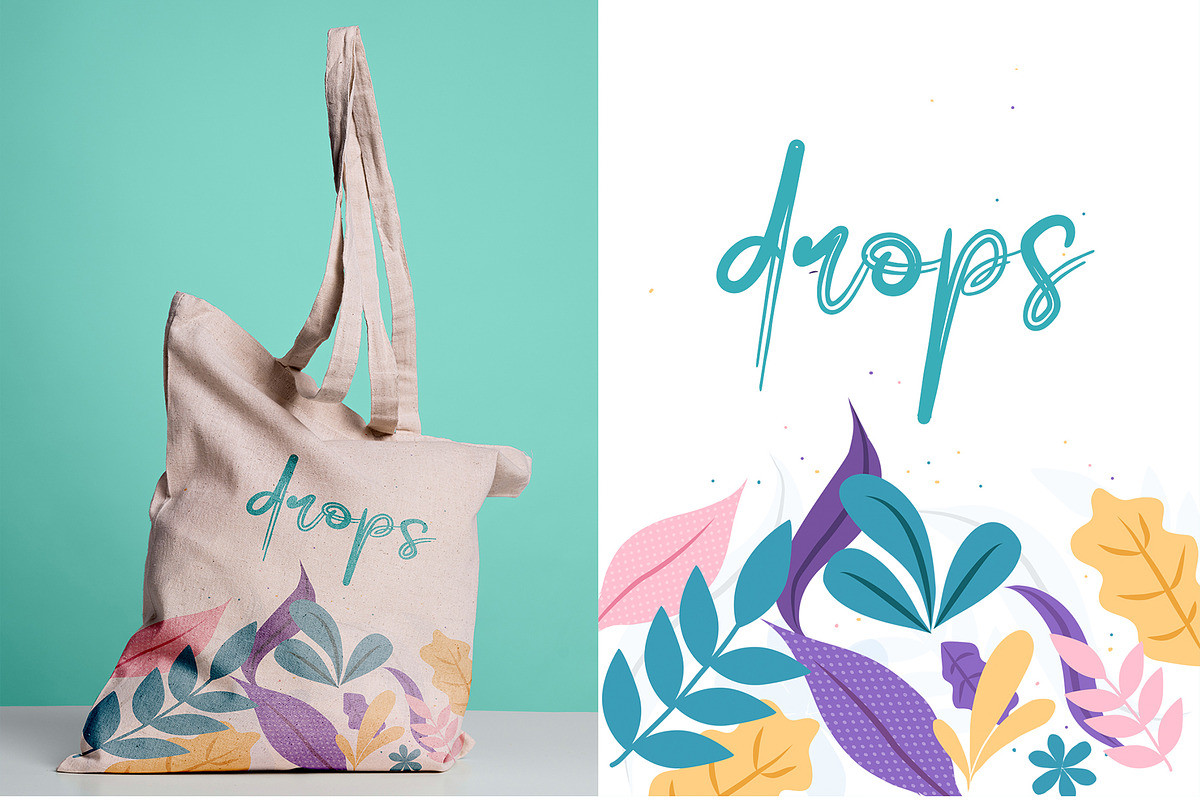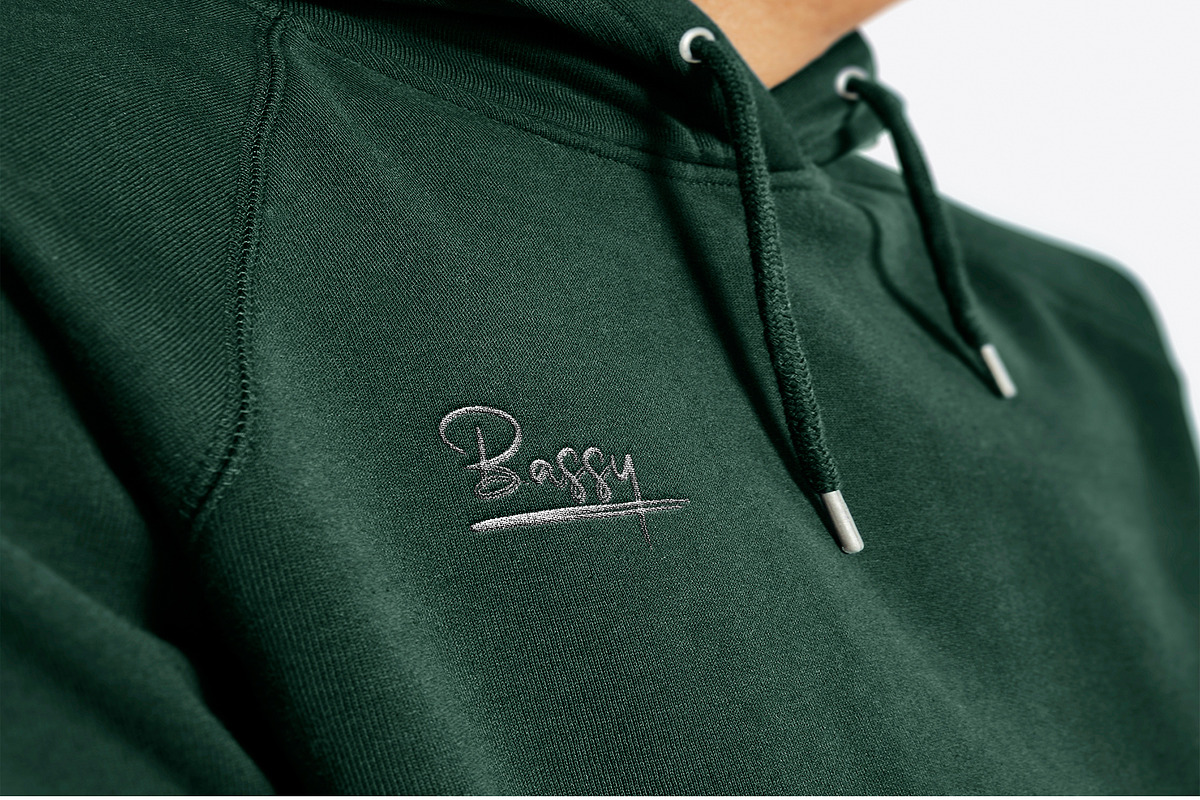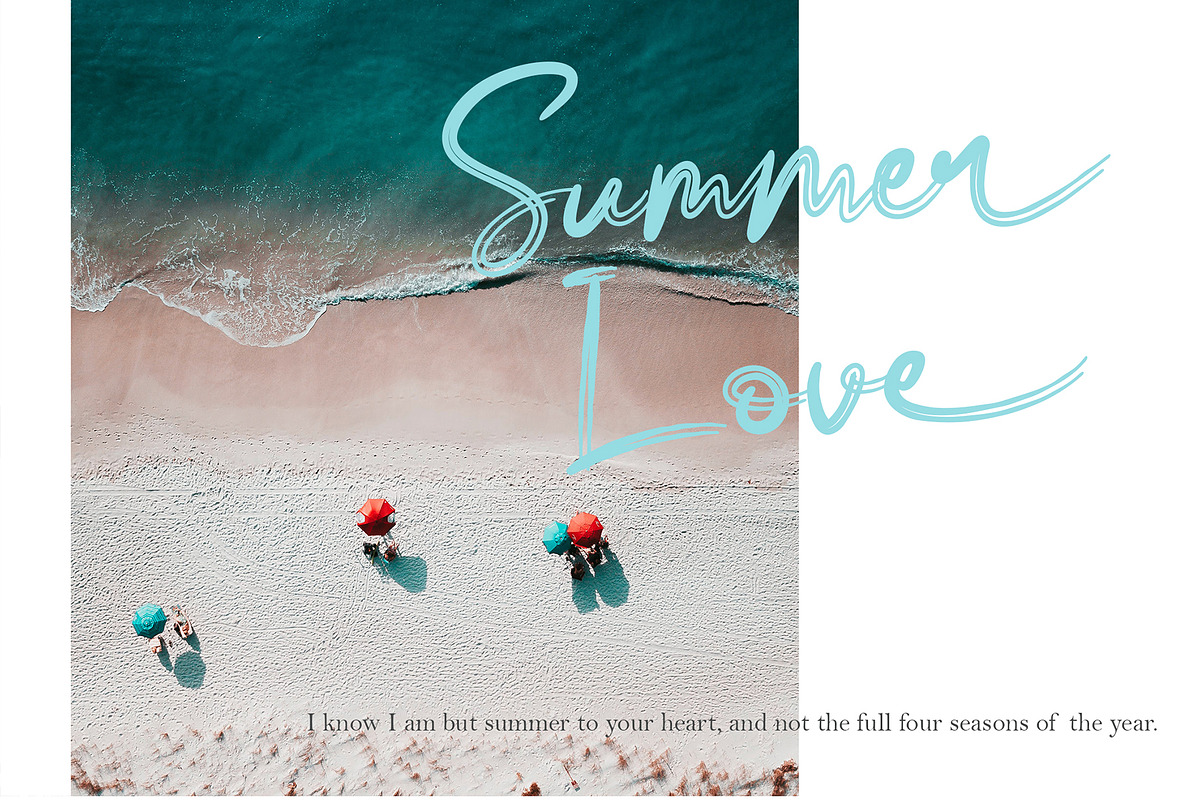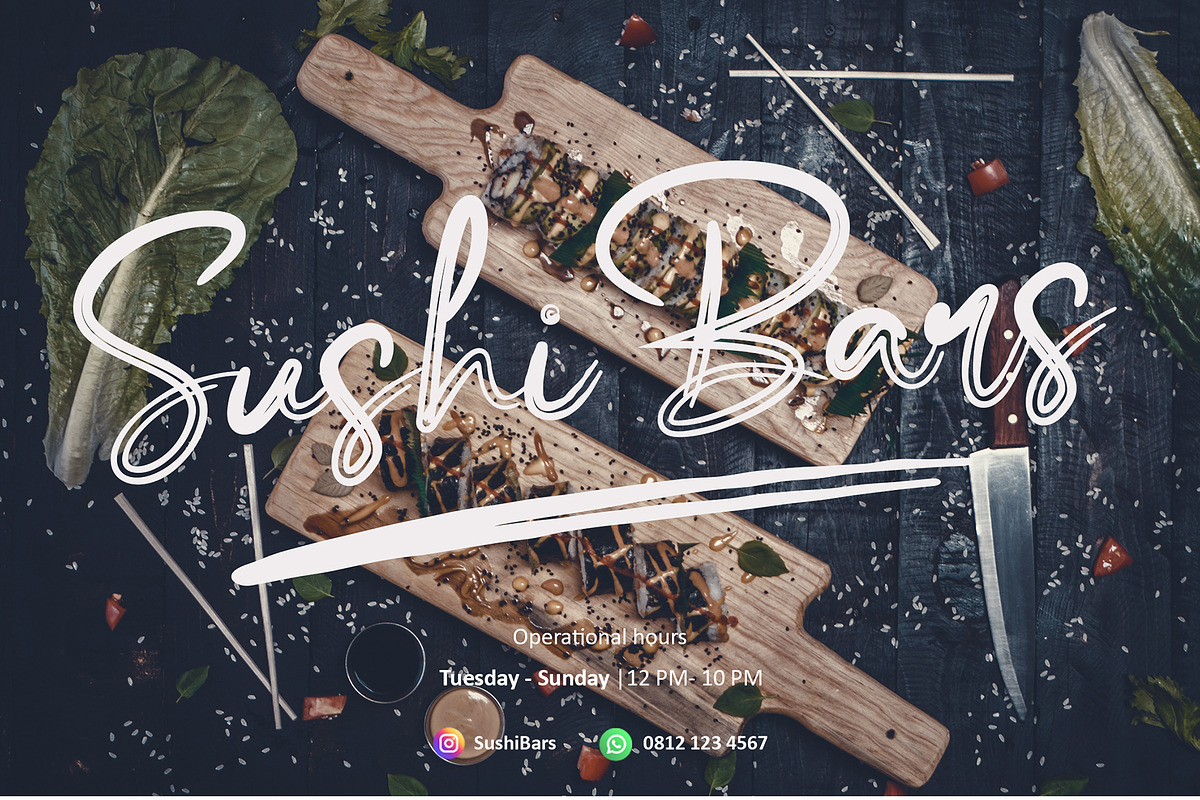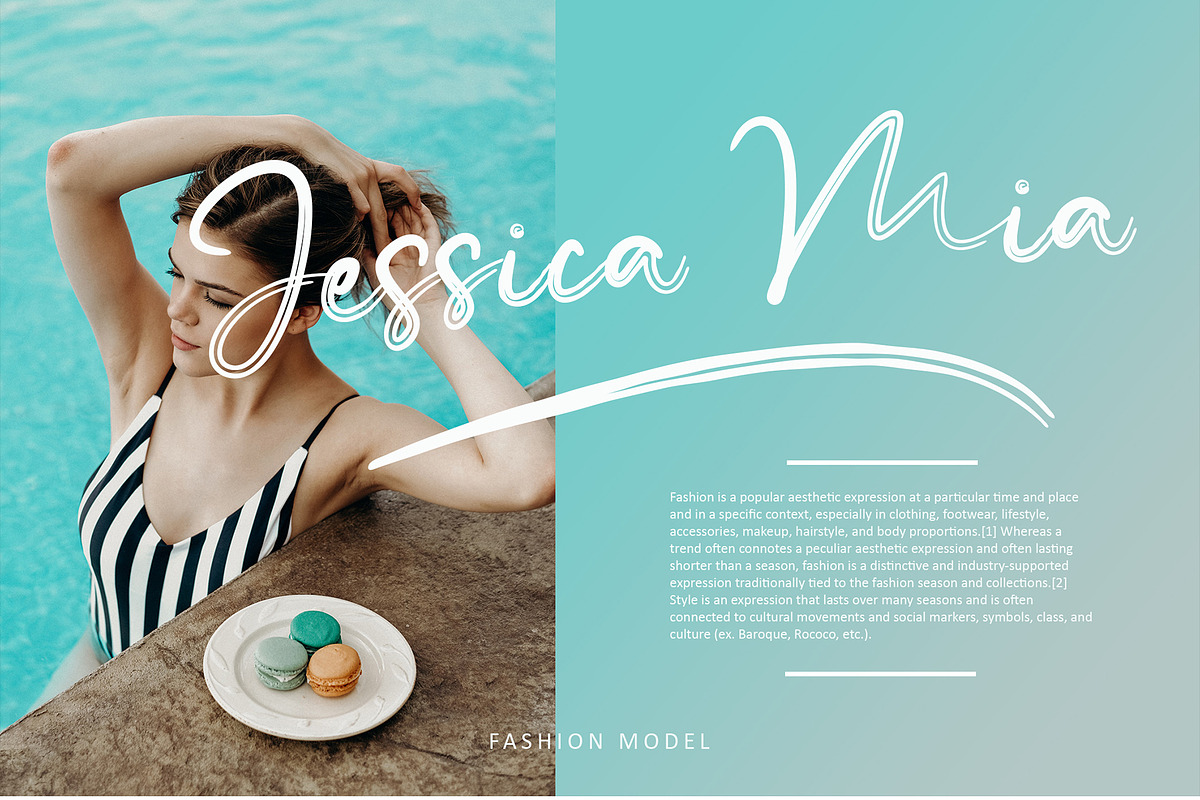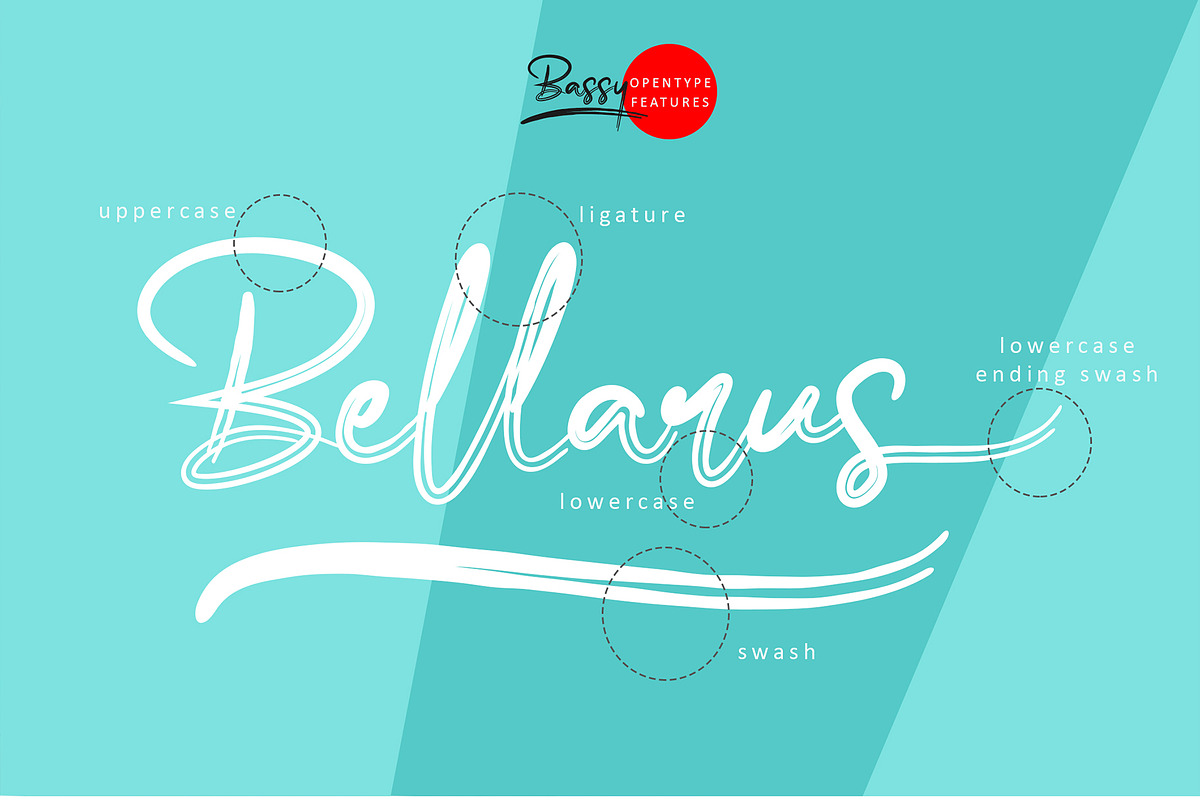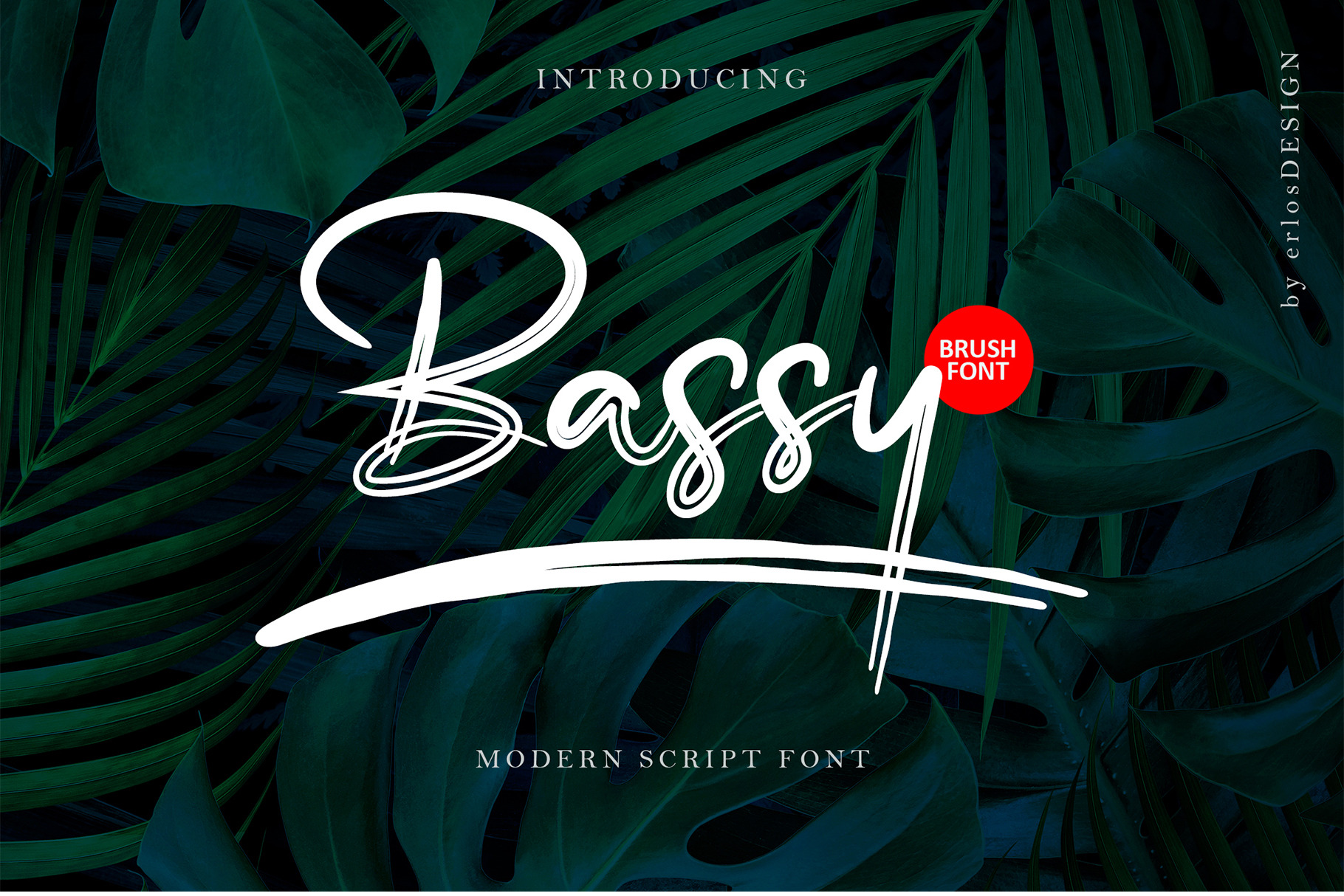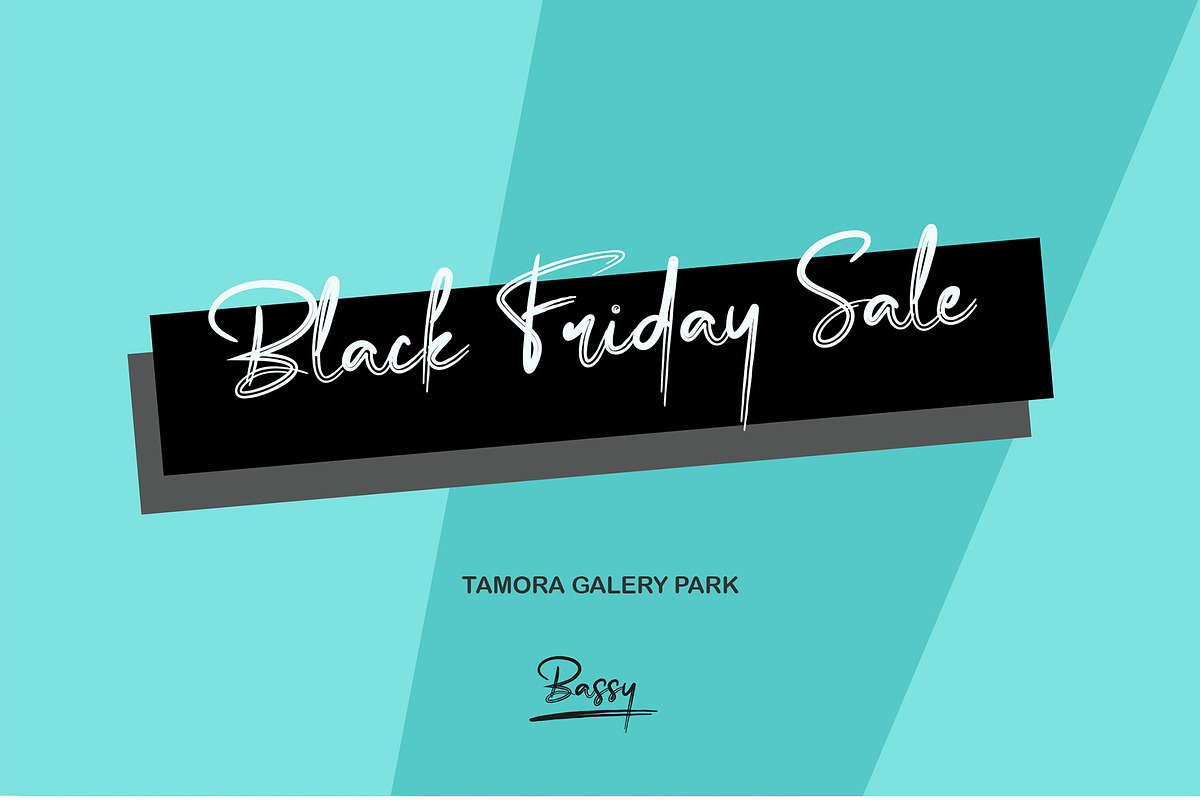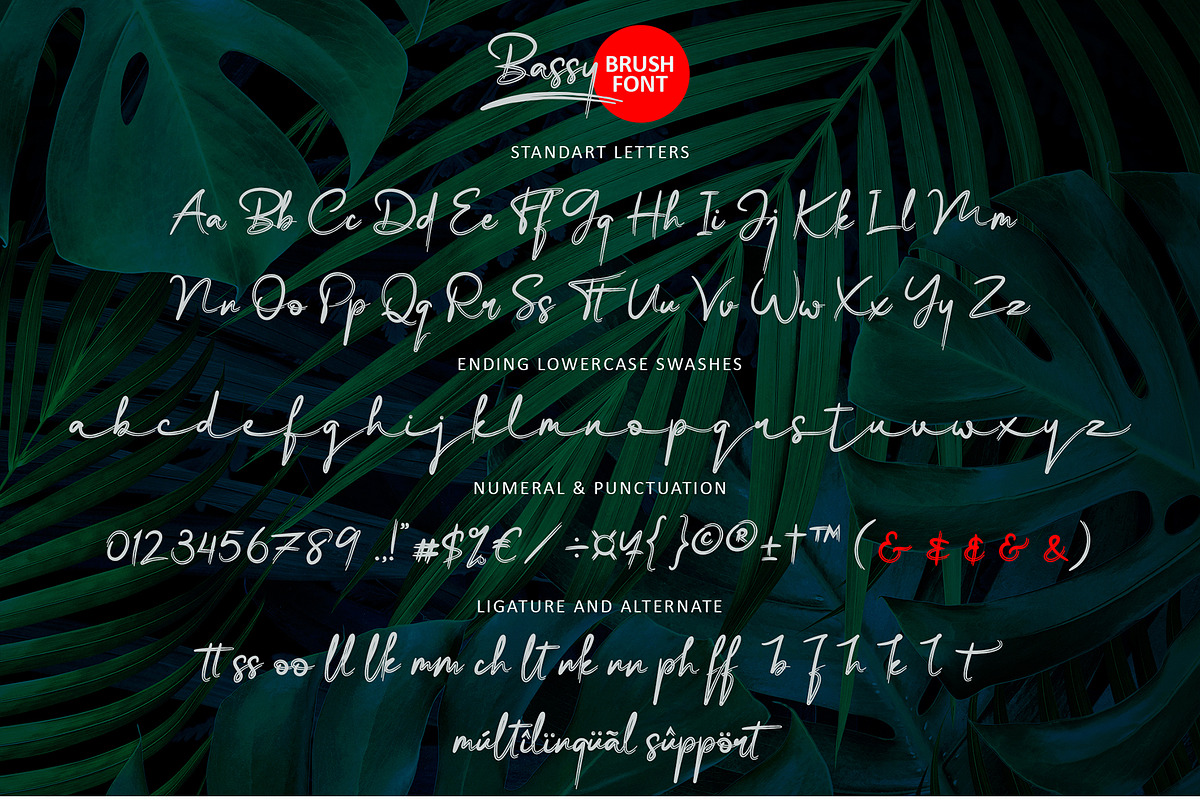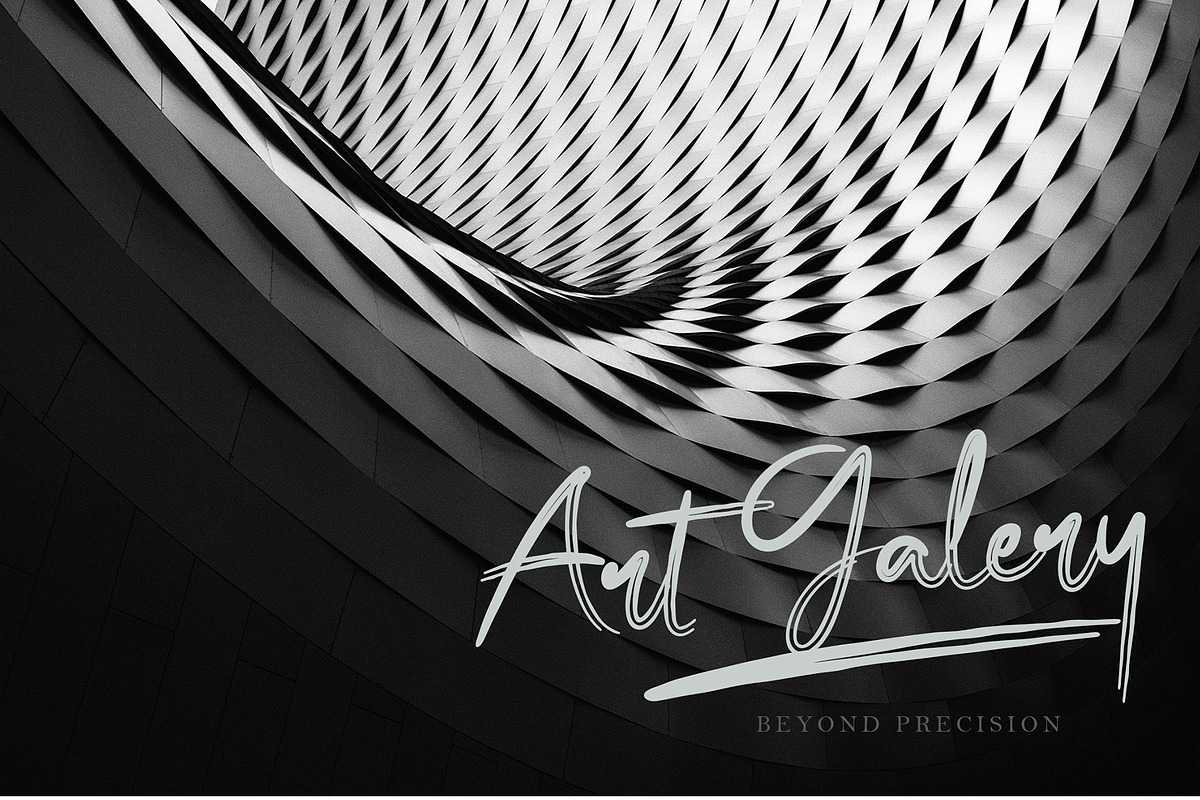
Bassy - Brush Font
Bassy - Brush Font by erlosDESIGN
Bassy is a stylish and delicate script font. It has a clean, thin and smooth vibe and it will be a hit for any design that you want to add it to. It is suitable for any branding, product packaging, invitation, quote, t-shirt, label, poster, logo that you wish to develop.